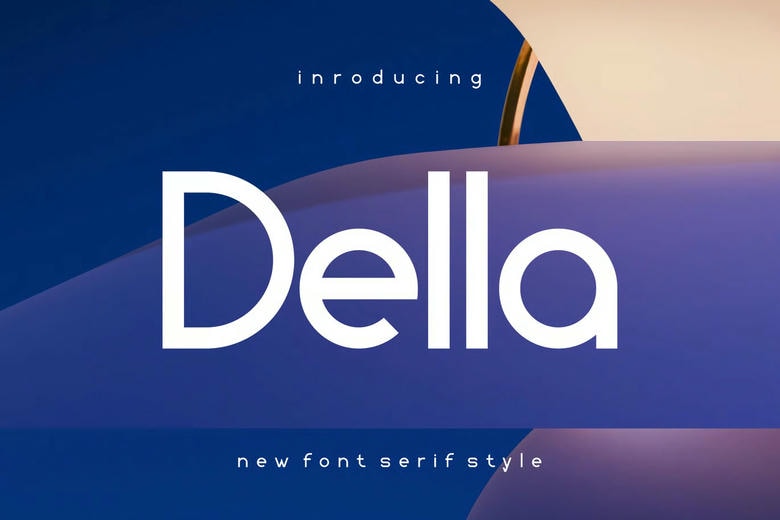
Della Font
Della Font is a modern sans-serif display font that stands out with its clean lines and bold style. Its strong look works well for headlines, branding, posters, and other designs that need to grab attention.
Della Sans Serif Font